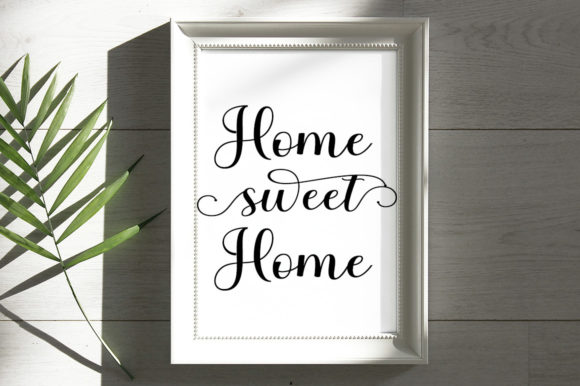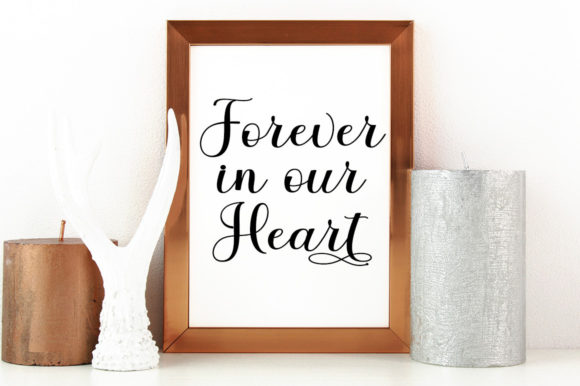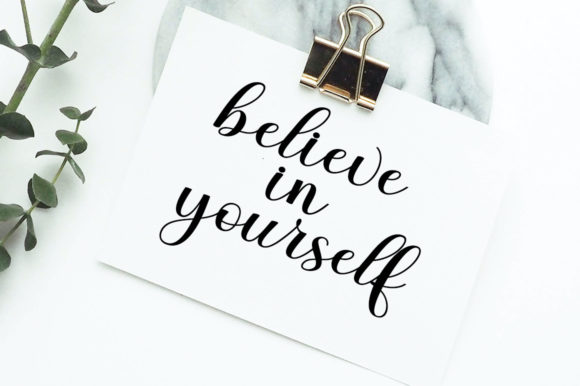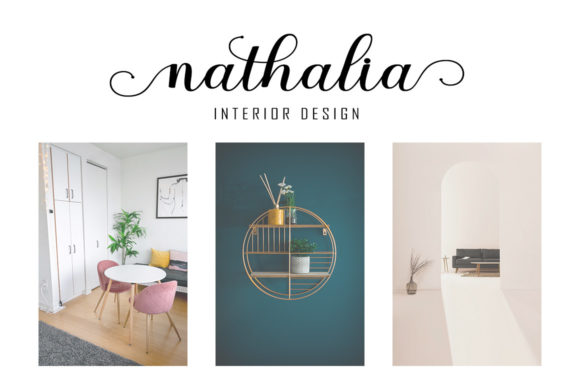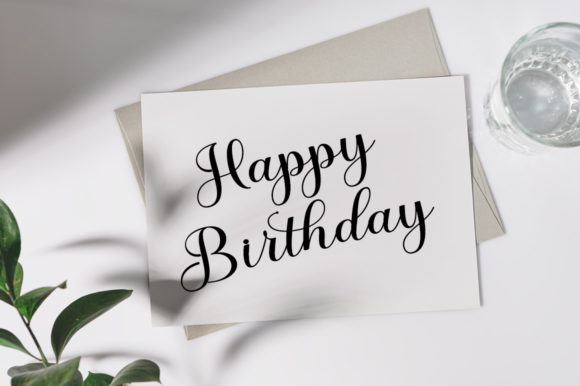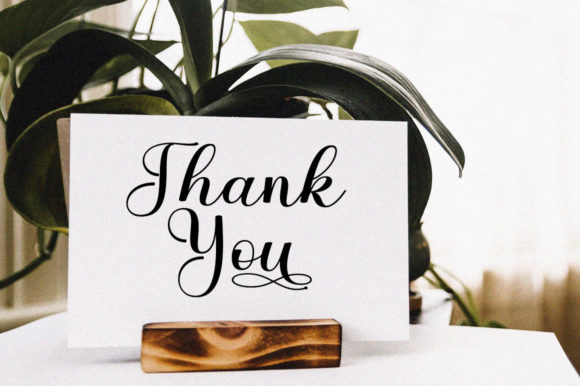
Introduction to Housthina Script Font
Housthina Script is an exquisite script font, that will enhance the beauty of each of your designs.
This font is PUA encoded which means you can access all glyphs and swashes with ease .
Key Features of Housthina Script Font
Housthina Script Font offers exceptional quality and versatility, making it a valuable addition to your design toolkit. Whether you’re creating for personal projects or commercial use, Housthina Script Font delivers professional results.